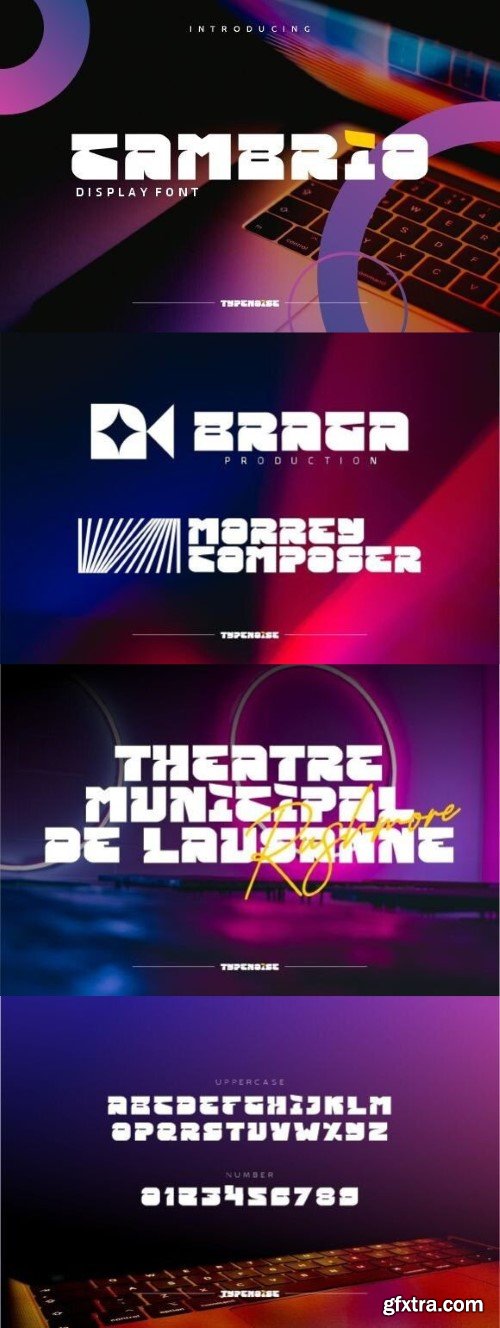
坎布里奥字体
Introducing Cambrio display, a compelling font that effortlessly combines bold typography with an urban style aesthetic. The strength of its alphabet exudes modernity, making it perfect for logos, fashion brands, technology start-ups, and everything in between. Its futuristic vibe makes it an ideal choice for those wanting to give a cutting-edge twist to any digital medium. Whether you are in sports, the movie industry, or logo design, Cambrio display’s vector illustration ensures a striking effect that leaves a lasting impression. A style that bridges categories and breaks boundaries, Cambrio display is your go-to choice for making a resounding design statement.